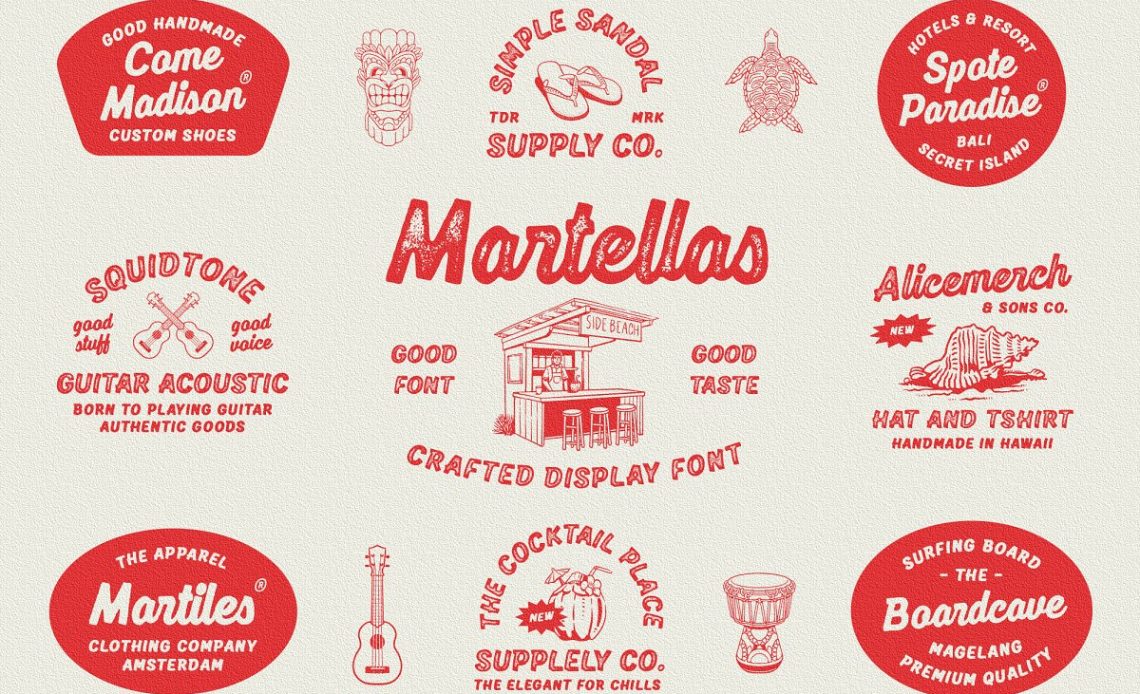
Introducing Martellas, the display font collection created by Edi Gunawan that is sure to elevate your designs. Perfect for shirt lettering, this font family offers both script and sans serif options, each with four style typefaces to choose from: regular, rounded, rough, and stamp.
But that's not all. Martellas also includes a pack of Hawaii-themed illustrations to add even more personality to your designs. And with alternate characters and ligatures in the script font, as well as different stamp options for uppercase and lowercase letters in the sans serif font, the possibilities are endless.
Martellas is the ultimate font collection for all your design needs. Whether you're creating a logo, poster, label, badge, packaging, t-shirt, or custom design, this font family has got you covered. And with multilingual support and PUA encoding, there are no limits to your creativity.
In total, Martellas includes 9 fonts, including script, sans serif, and dingbat options, as well as 13 hand-drawn illustrations in the dingbat collection. So why settle for a boring font when you can have the best? Add Martellas to your collection today and take your designs to the next level.